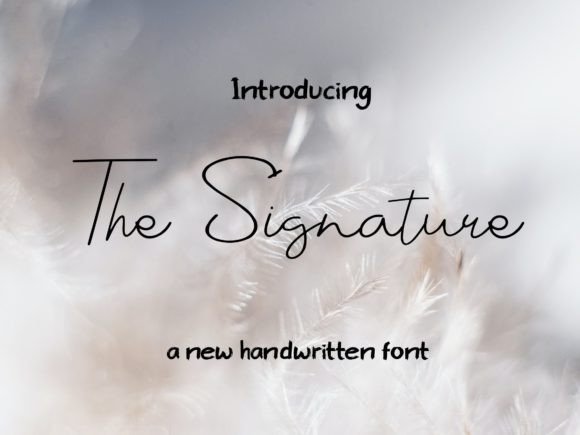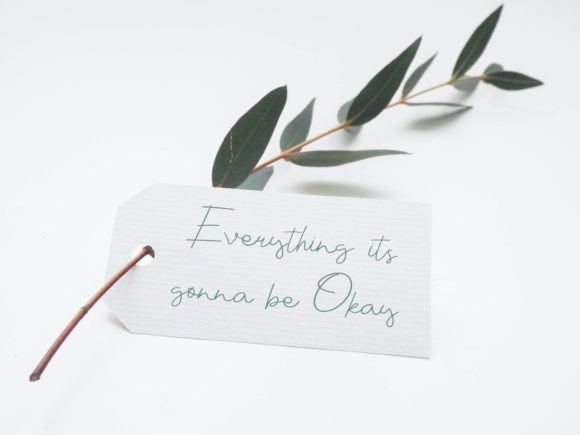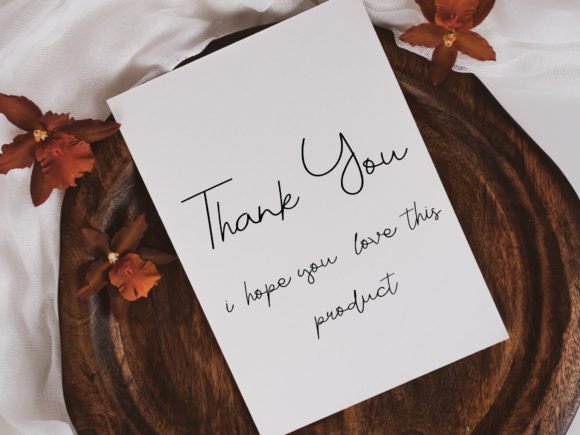
About The Signature Font
“The Signature: A Gorgeous Handwritten Font for Authentic Artistry
Introducing ‘The Signature,’ a gorgeous handwritten font that captivates with its natural and elegant style. This font is designed to impress, adding a touch of authenticity to your most creative ideas. Whether you’re working on invitations, branding, social media graphics, or any other design project, ‘The Signature’ is the perfect choice. It’s not just a typeface; it’s a design asset that elevates your work, turning it into authentic pieces of art.
The natural and elegant style of ‘The Signature’ sets it apart, making it an ideal choice for a variety of creative applications. The handwritten design adds a personal touch, enhancing the overall aesthetics and creating a visually pleasing and memorable experience.
For invitations, branding, and social media graphics, ‘The Signature’ becomes a standout choice, infusing a sense of elegance and authenticity into your text. The font’s natural and graceful design contributes to a visually appealing and memorable look.
In various creative projects, ‘The Signature’ serves as a delightful element, creating a visual impact with its gorgeous and handwritten style. Its versatility adds a touch of authenticity to your endeavors, making it suitable for a wide range of contexts.
‘The Signature’s’ ability to transform ideas into authentic pieces of art makes it a valuable addition to your font library. Whether you’re working on invitations or social media graphics, this font brings a genuine and elegant character to your designs.
In conclusion, ‘The Signature’ is more than just a typeface; it’s a design companion that adds authenticity and elegance to your creative toolkit. Let ‘The Signature’ be the artistic element that elevates your invitations, branding, and various other projects. Embrace the gorgeous and handwritten charm of ‘The Signature,’ and watch as it transforms your ideas into visually enchanting and memorable experiences.”